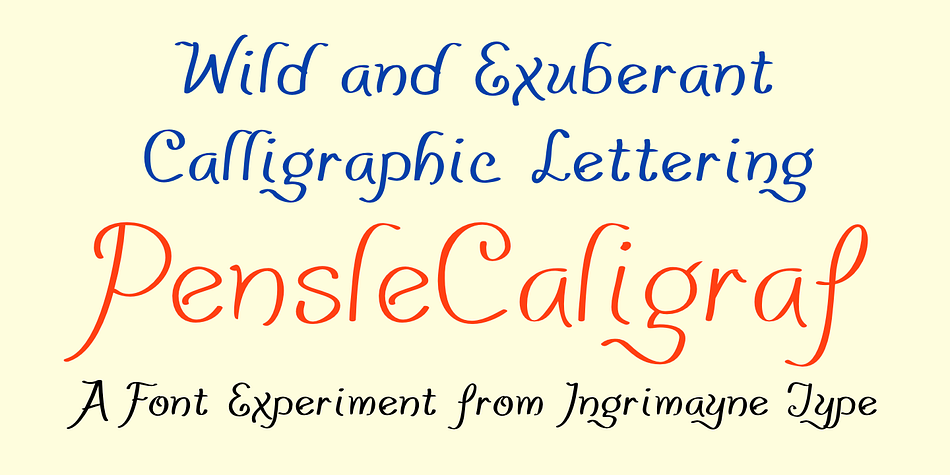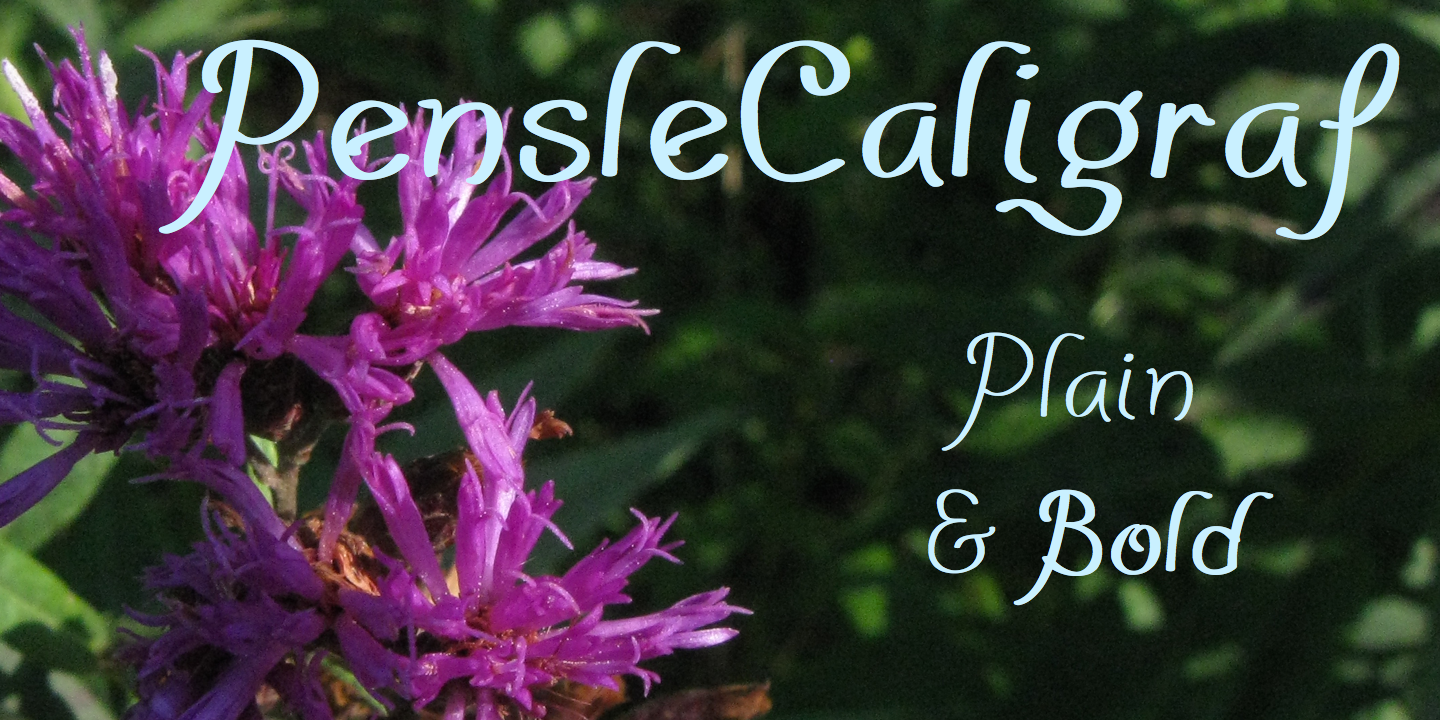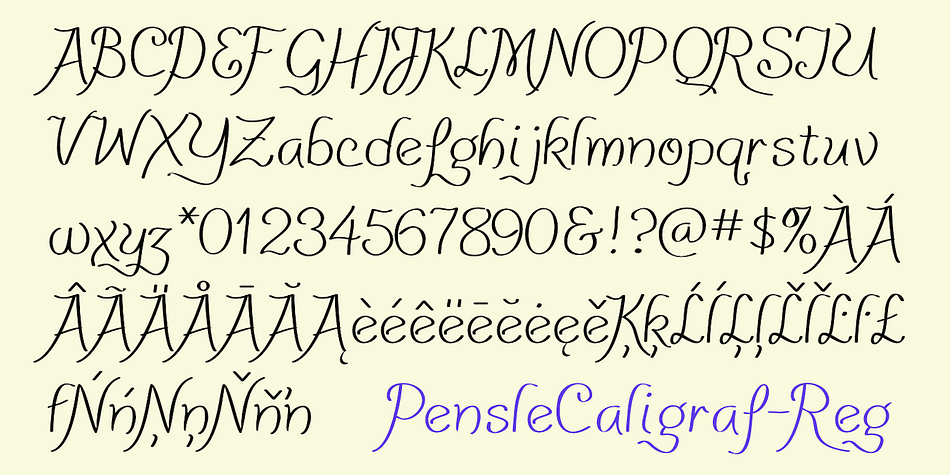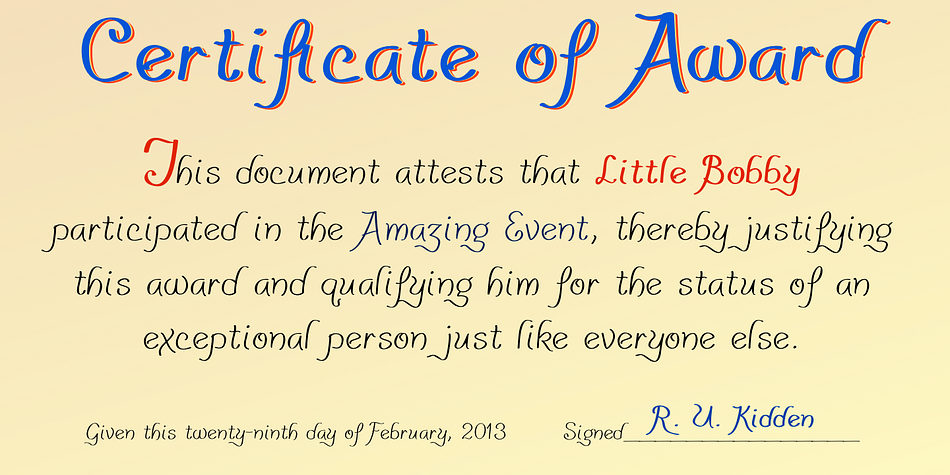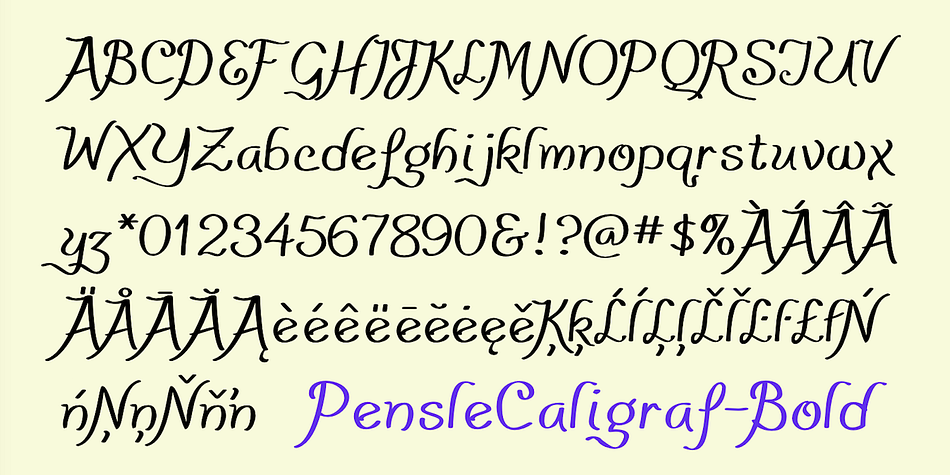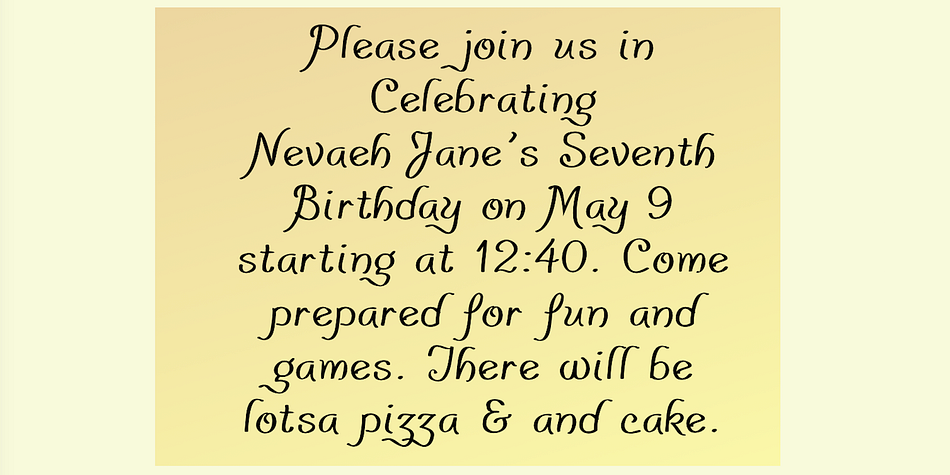
PensleCaligraf
Designed by Robert Schenk, PensleCaligraf is a hand drawn and script font family. This typeface has two styles and was published by Ingrimayne Type.
PensleCaligraf is a wild and exuberant calligraphic script. It may lack the elegance for formal invitations and certificates but its quirkiness may make it suitable for invitations and documents that are casual or humorous such as children’s birthday announcements or participation awards.